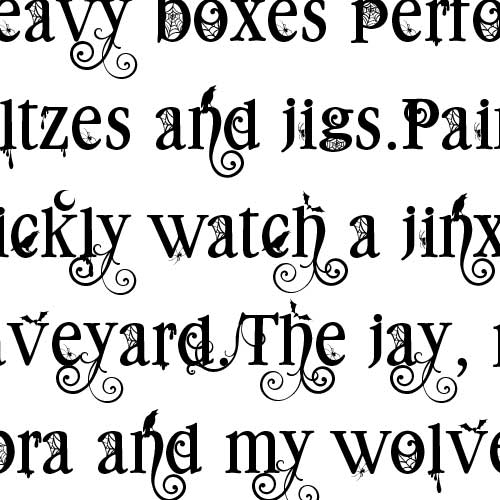
PN Macabre Millionaire - FN
This beautiful serif font has big flourishes on the uppercase with most of the font decorated in webs, bats, crows, spiders and more.